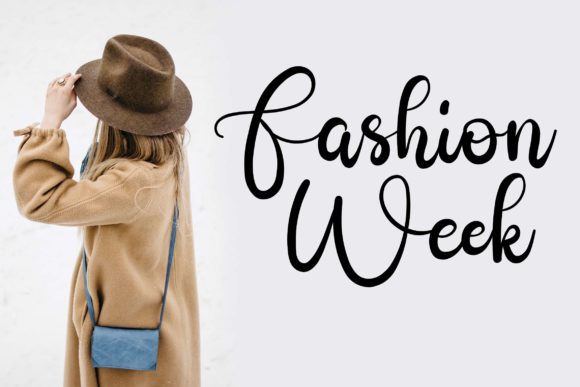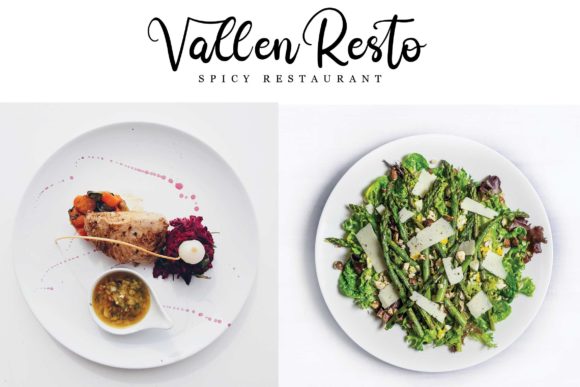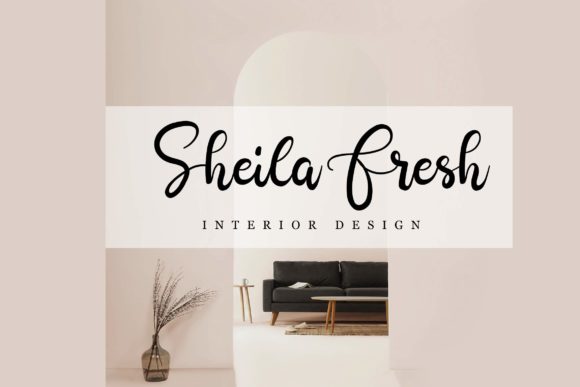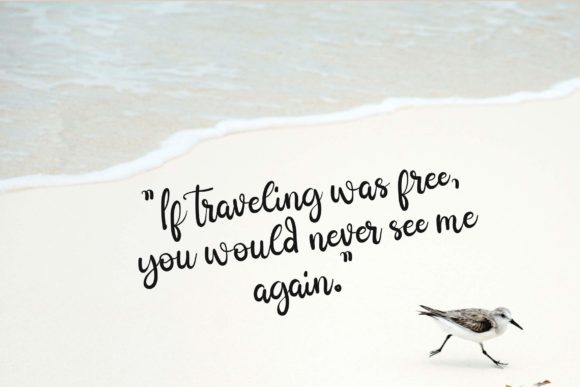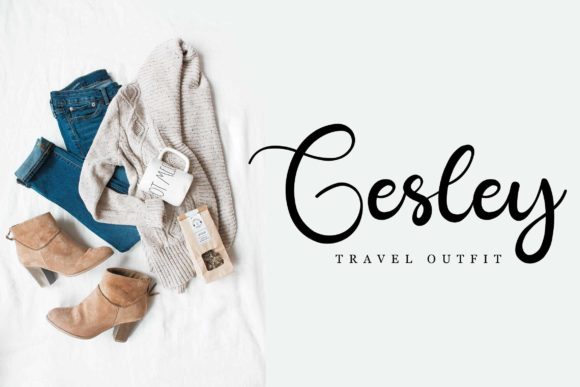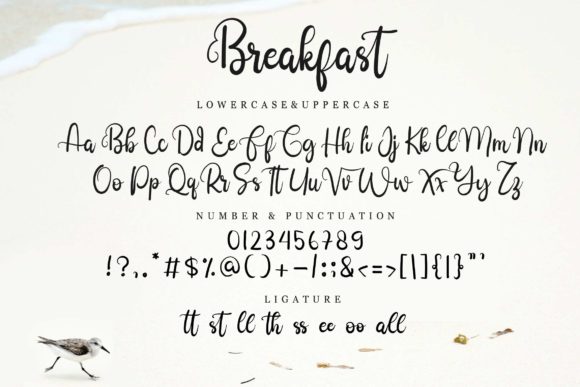
Introducing Breakfast Font: A Beautifully Enchanting Handwritten Font
Are you tired of using the same old fonts for your designs? Look no further! We’re excited to introduce you to Breakfast Font, a stunning handwritten font that’s sure to take your designs to the next level. With its beautiful curvature and elegant feel, this font is perfect for both formal and informal designs.
The Beauty of Breakfast Font
Breakfast Font is a masterpiece of typography, boasting a unique and enchanting style that’s sure to blow everyone away. The curvature of the letters is meticulously crafted to create a sense of fluidity and movement, making it perfect for designs that require a touch of elegance and sophistication.
Whether you’re working on a formal project, such as a business card or a luxury brand logo, or something more informal, like a social media post or a craft project, Breakfast Font is the perfect choice. Its versatility and charm make it an excellent addition to any designer’s toolkit.
What Makes Breakfast Font So Special?
So, what sets Breakfast Font apart from other fonts out there? Here are just a few reasons why this font is a must-have for designers and crafters:
- Unique and Enchanting Style: Breakfast Font has a one-of-a-kind style that’s sure to make your designs stand out from the crowd.
- Elegant and Sophisticated: The font’s curvature and movement create a sense of elegance and sophistication, perfect for formal designs.
- Versatile: Whether you’re working on a formal or informal project, Breakfast Font is the perfect choice.
- Handwritten: The font’s handwritten style adds a personal touch to your designs, making them more relatable and engaging.
How to Use Breakfast Font in Your Designs
Using Breakfast Font in your designs is easy! Here are a few ideas to get you started:
- Logos and Branding: Use Breakfast Font to create a unique and memorable logo for your business or brand.
- Social Media Posts: Add a touch of elegance to your social media posts with Breakfast Font.
- Craft Projects: Use Breakfast Font to add a personal touch to your craft projects, such as handmade cards or gift tags.
- Business Cards: Make a statement with your business cards by using Breakfast Font.
Tips and Tricks for Working with Breakfast Font
Here are a few tips and tricks to help you get the most out of Breakfast Font:
- Experiment with Different Sizes: Play around with different font sizes to find the perfect balance for your design.
- Pair with Other Fonts: Try pairing Breakfast Font with other fonts to create a unique and interesting combination.
- Use in Combination with Images: Use Breakfast Font in combination with images to create a visually appealing design.
In conclusion, Breakfast Font is a beautifully enchanting handwritten font that’s perfect for designers and crafters looking to add a touch of elegance and sophistication to their designs. With its unique and enchanting style, versatility, and charm, this font is sure to become a staple in your design toolkit. So why wait? Download Breakfast Font today and start creating stunning designs that will leave everyone in awe!